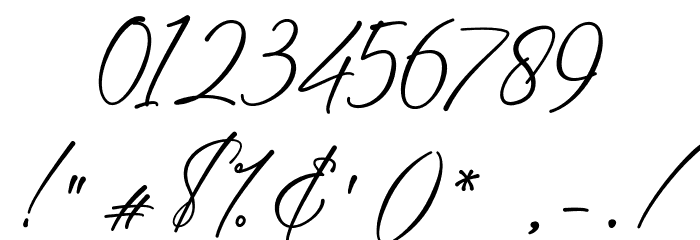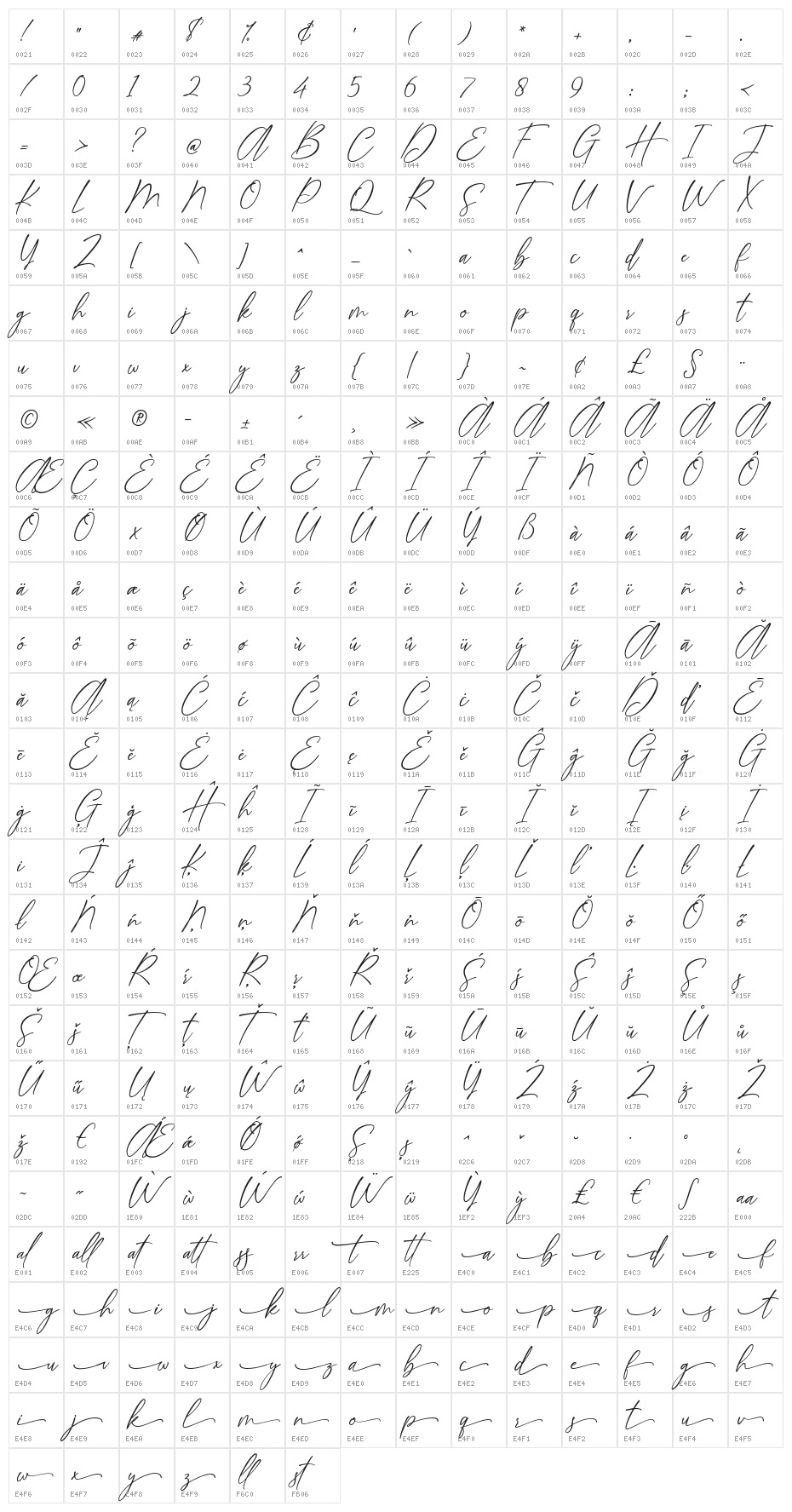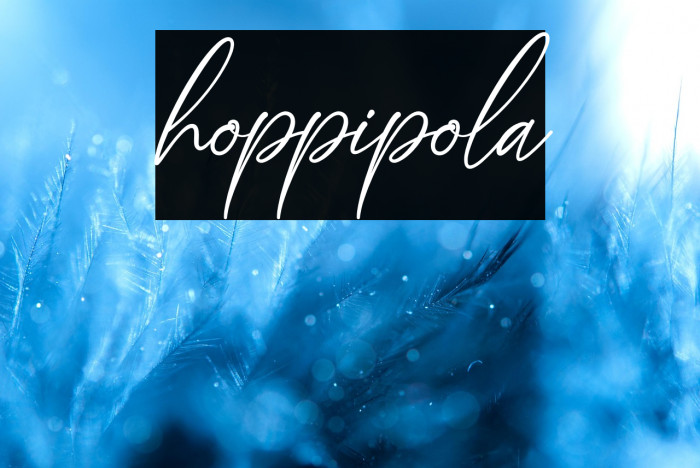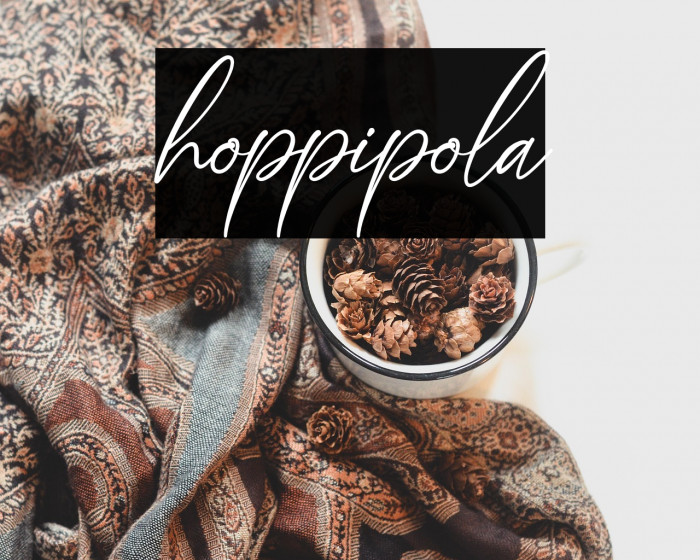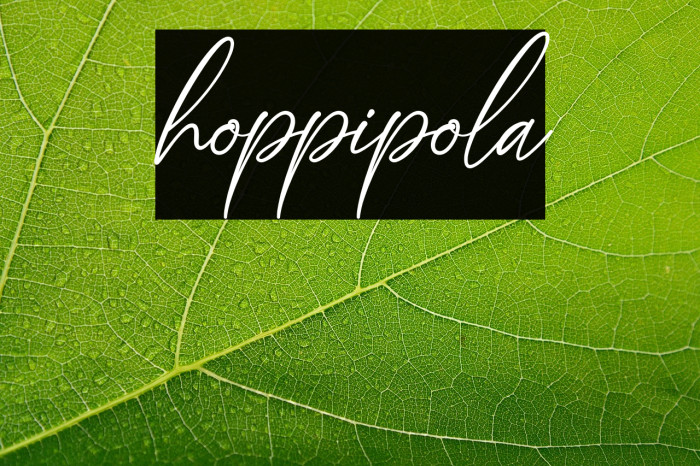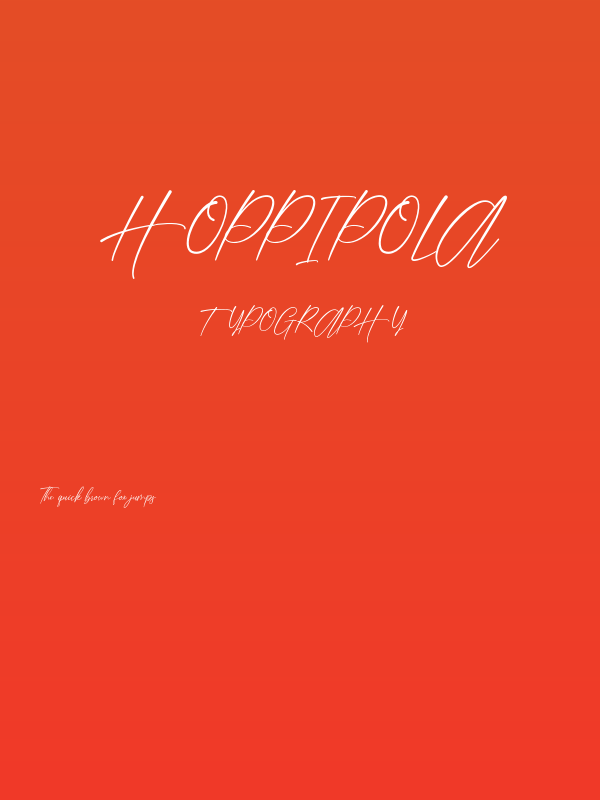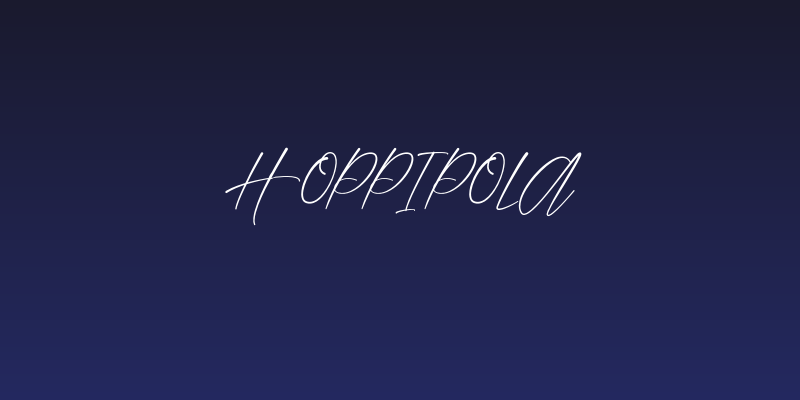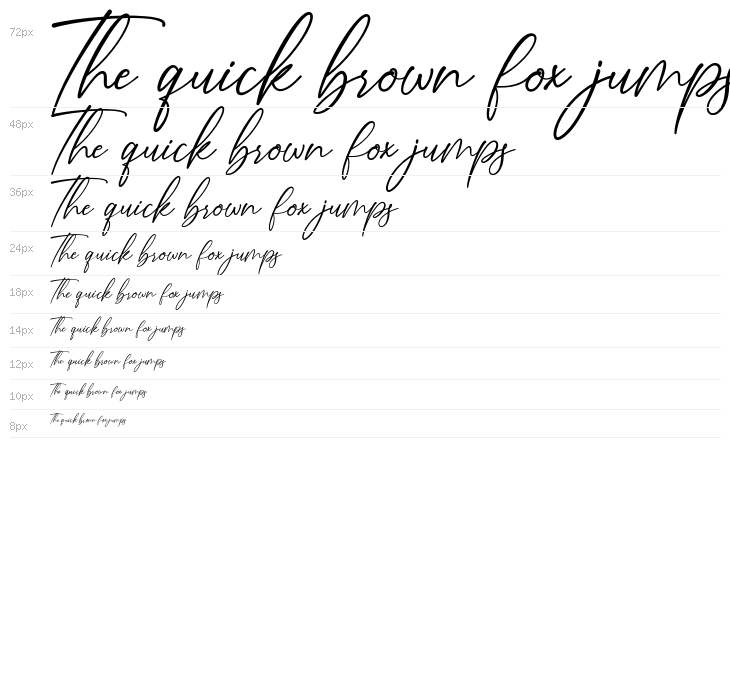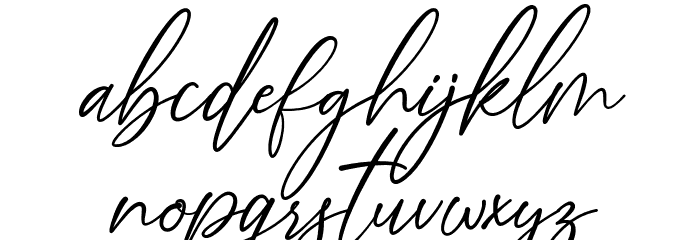
hoppipola Font
hoppipola Description
This font features an elegant, flowing script style that mimics natural handwriting. The uppercase letters are tall and slender, with a slight slant that adds a dynamic feel. The lowercase letters are more rounded and connected, creating a cohesive and fluid appearance. The numerals maintain the same graceful style, with a consistent stroke width that ensures readability. Special characters are designed to blend seamlessly with the letters, maintaining the overall aesthetic. This font exudes a sense of sophistication and personal touch, making it suitable for projects that require a handwritten look.